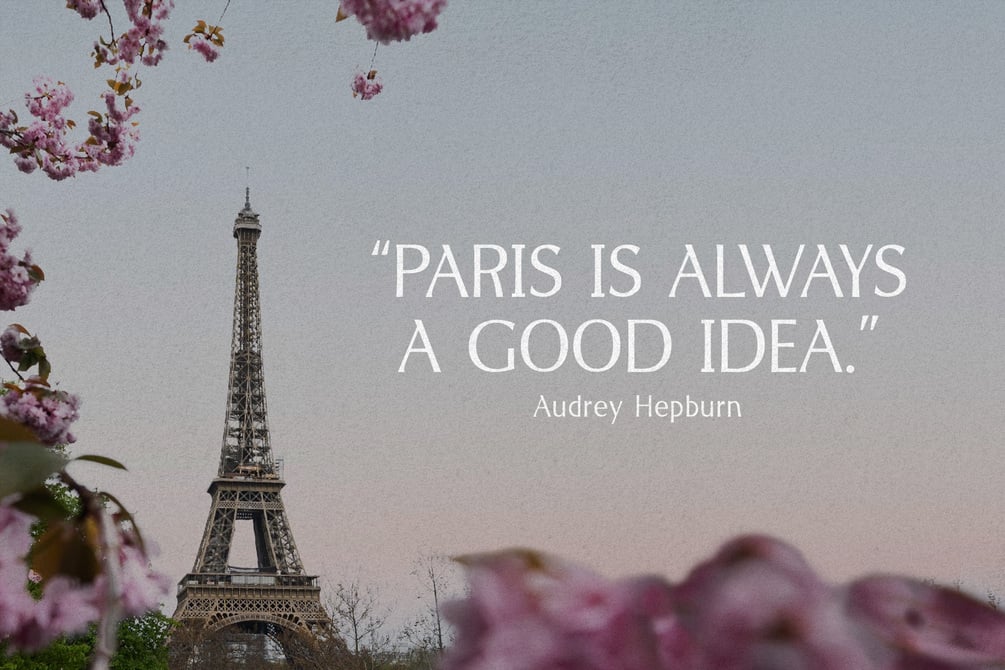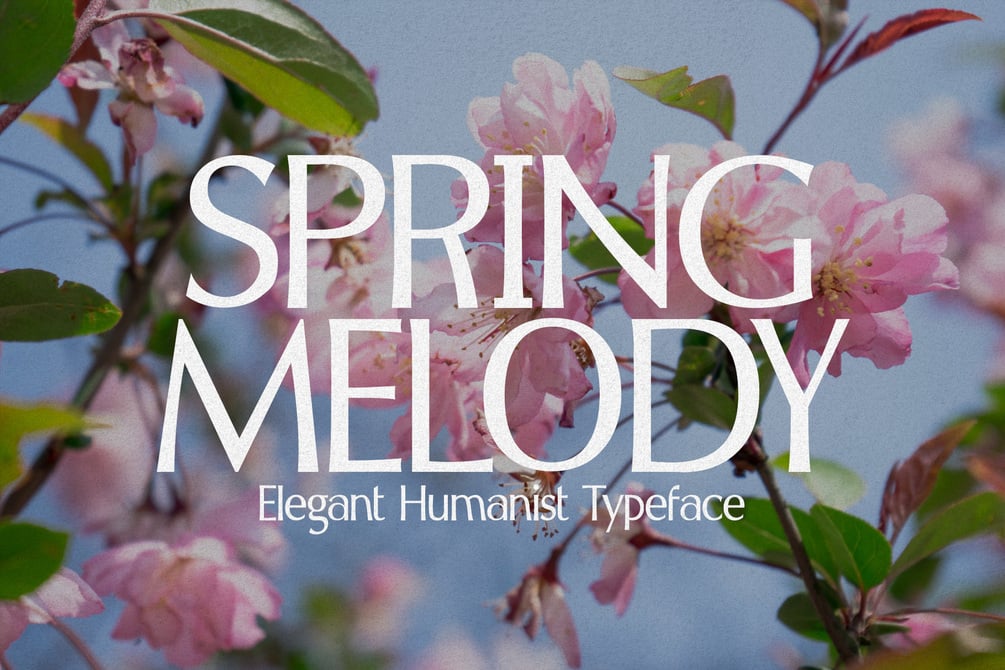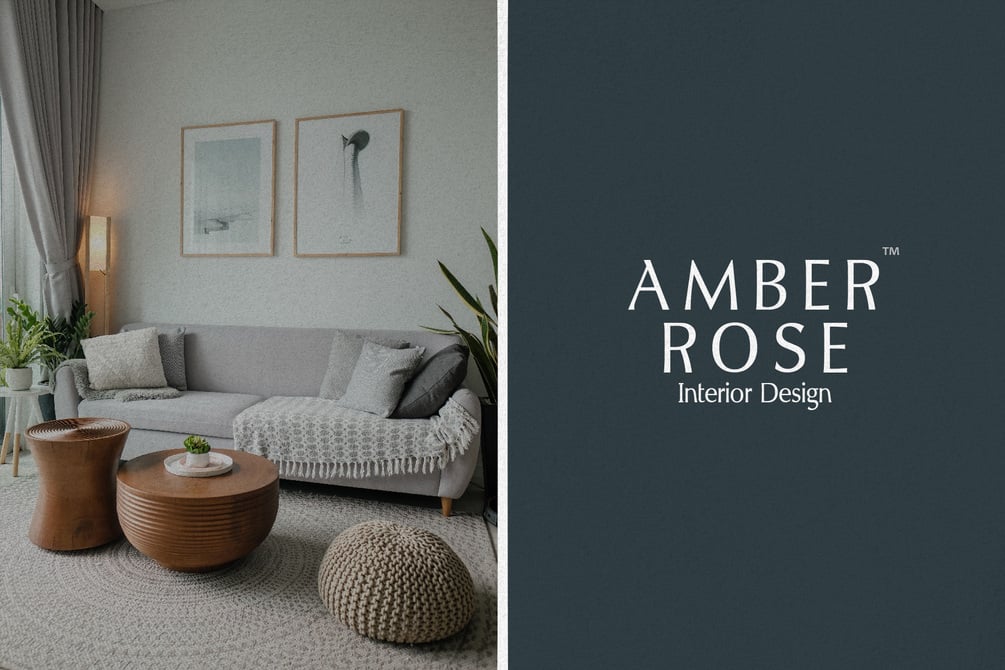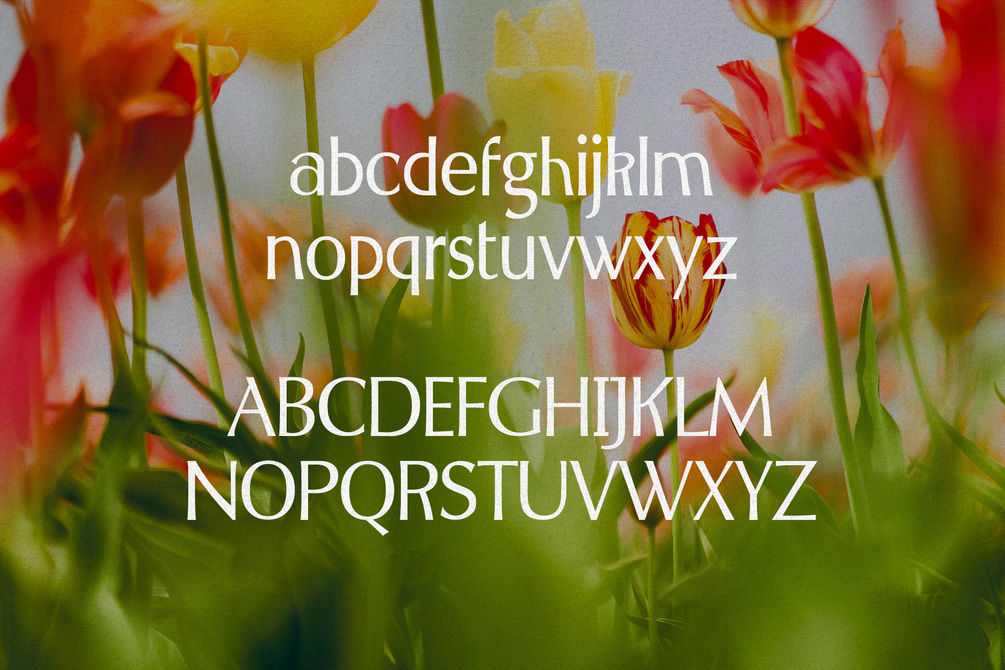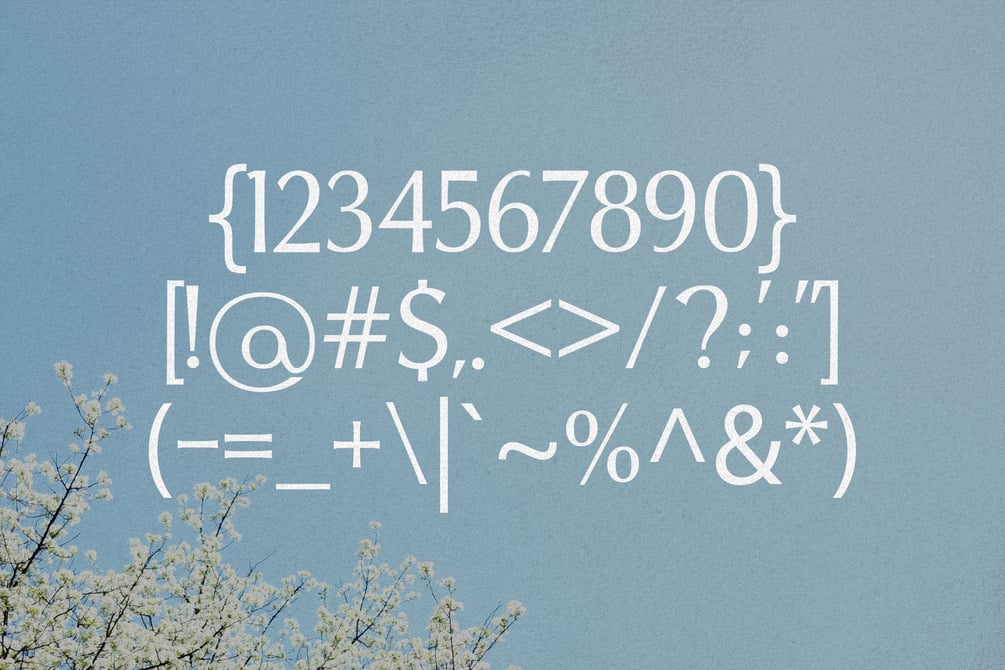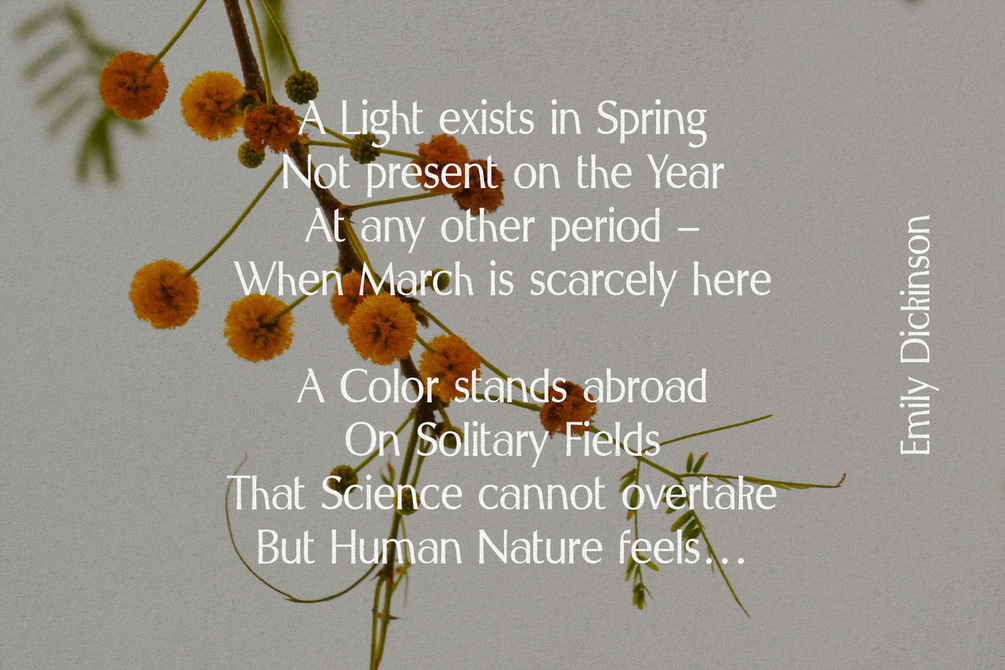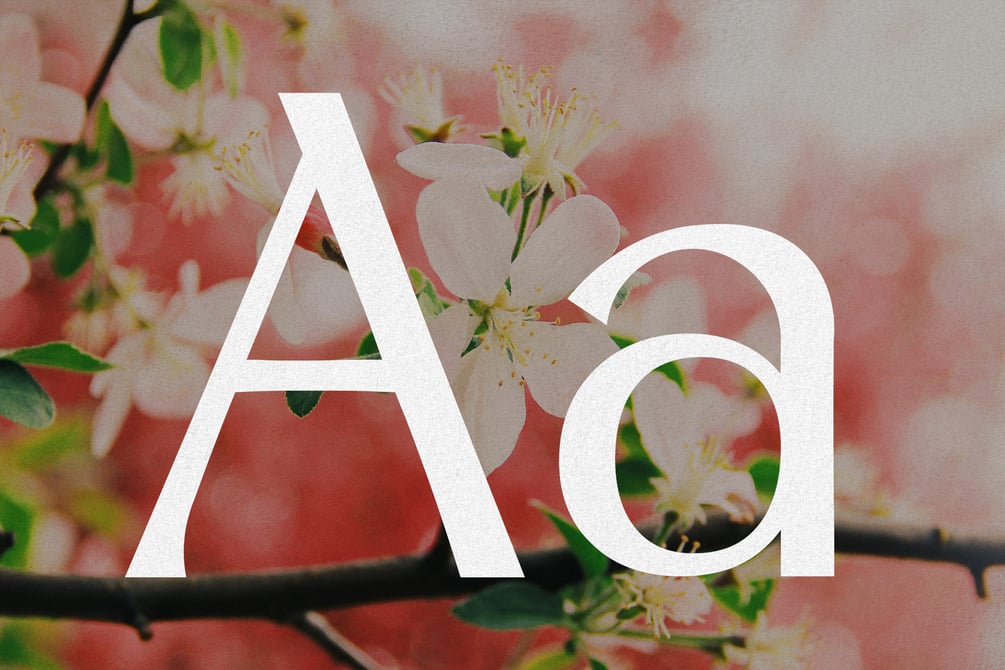
Spring Melody - Humanist Typeface
Spring Melody is an elegant humanist typeface. Spring Melody has elegant curves, beautiful kerning, and sharp edges. The font is perfectly suitable for creating elegant, clean, retro design such as branding, packaging, social media, wedding invitation, advertising, editorials, and much more. If you're looking to create a sense of luxury in your designs, then Spring Melody is exactly what you've been looking for.